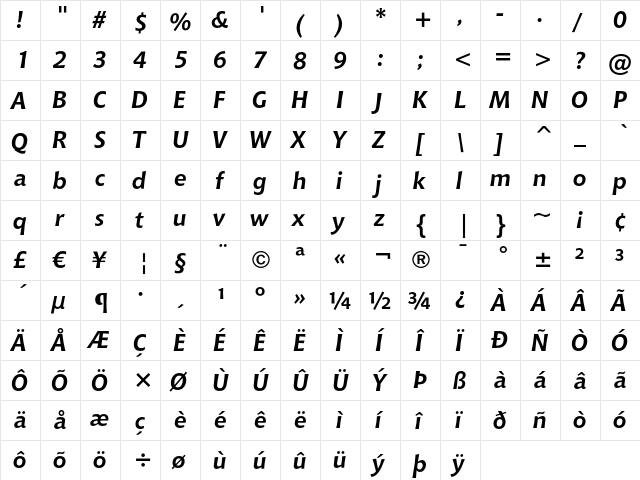
Bitstream Chianti Bold Italic
Design Context for Bitstream Chianti Typeface
Bitstream Chianti is a composed and adaptable typeface that performs quietly and consistently across a wide range of design contexts. The slanted form adds forward momentum and visual energy. The heavy weight commands attention and anchors typographic hierarchies.
Pro Tip: Use Bitstream Chianti for emphasis, pull quotes, and subheadings where its slanted energy can add rhythm to the layout.